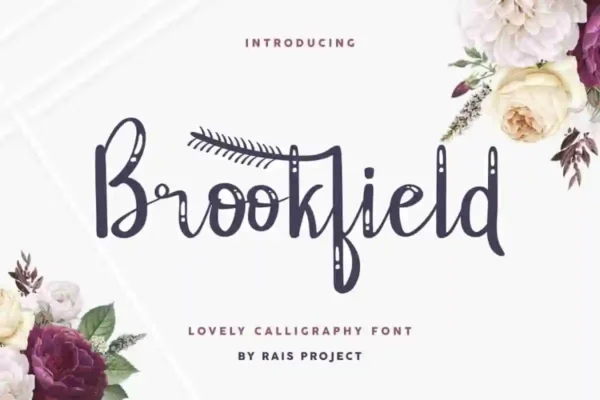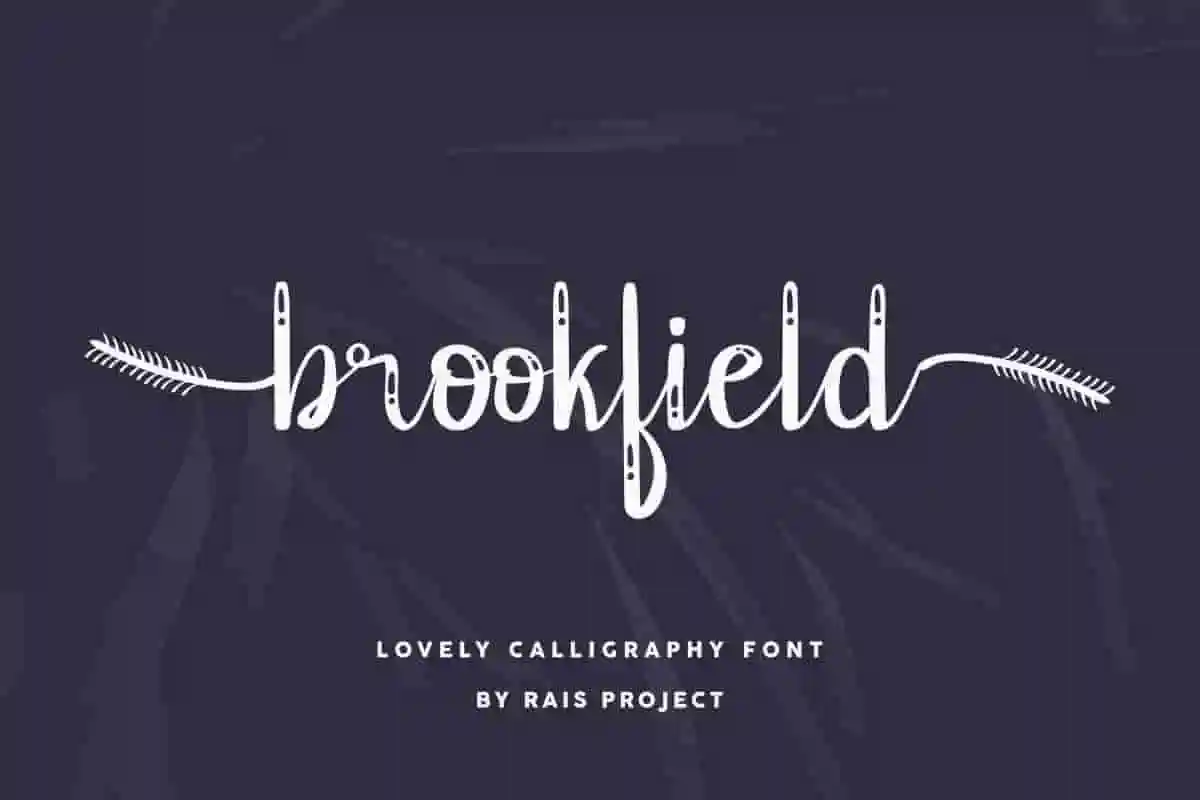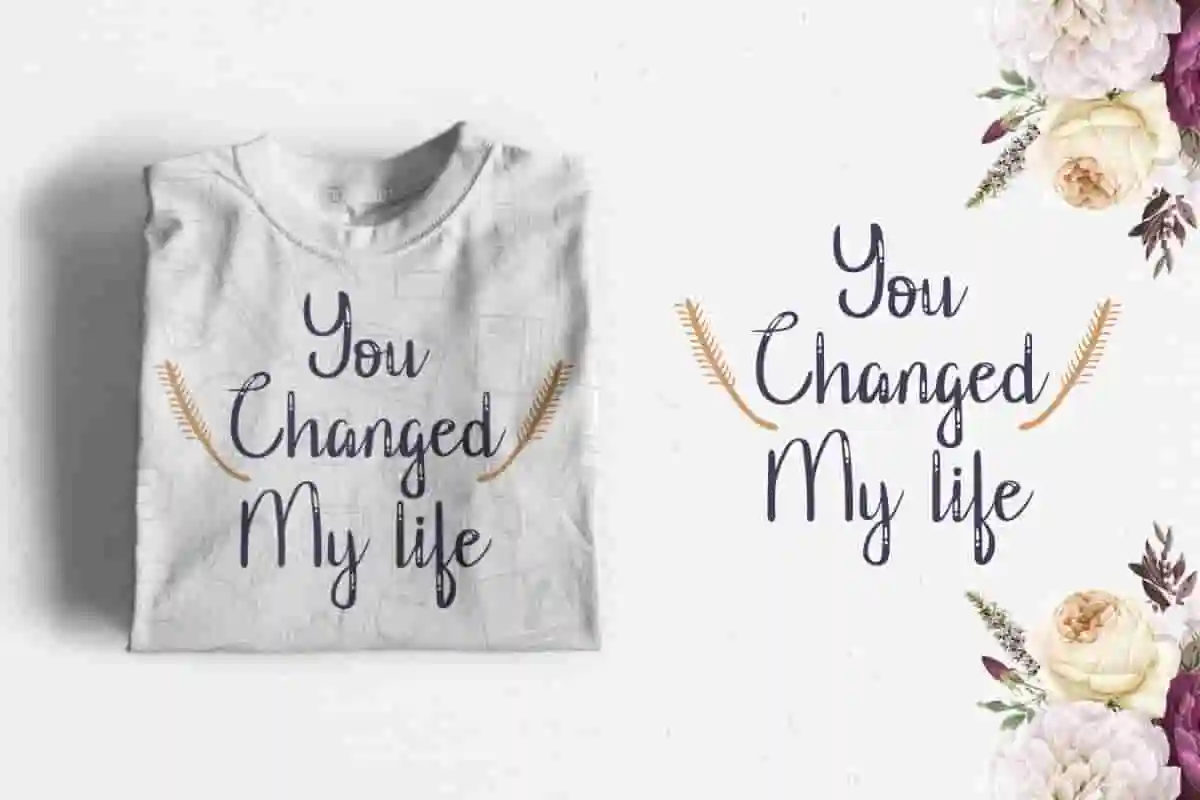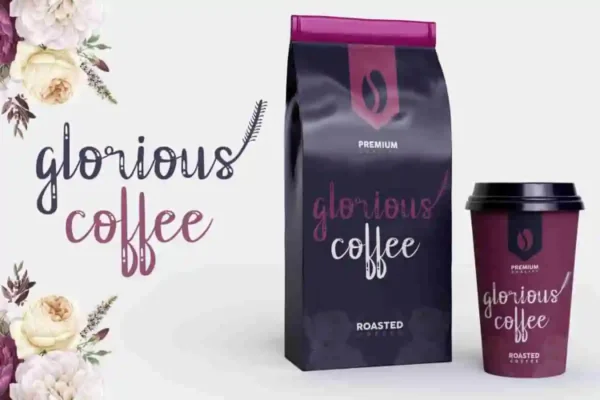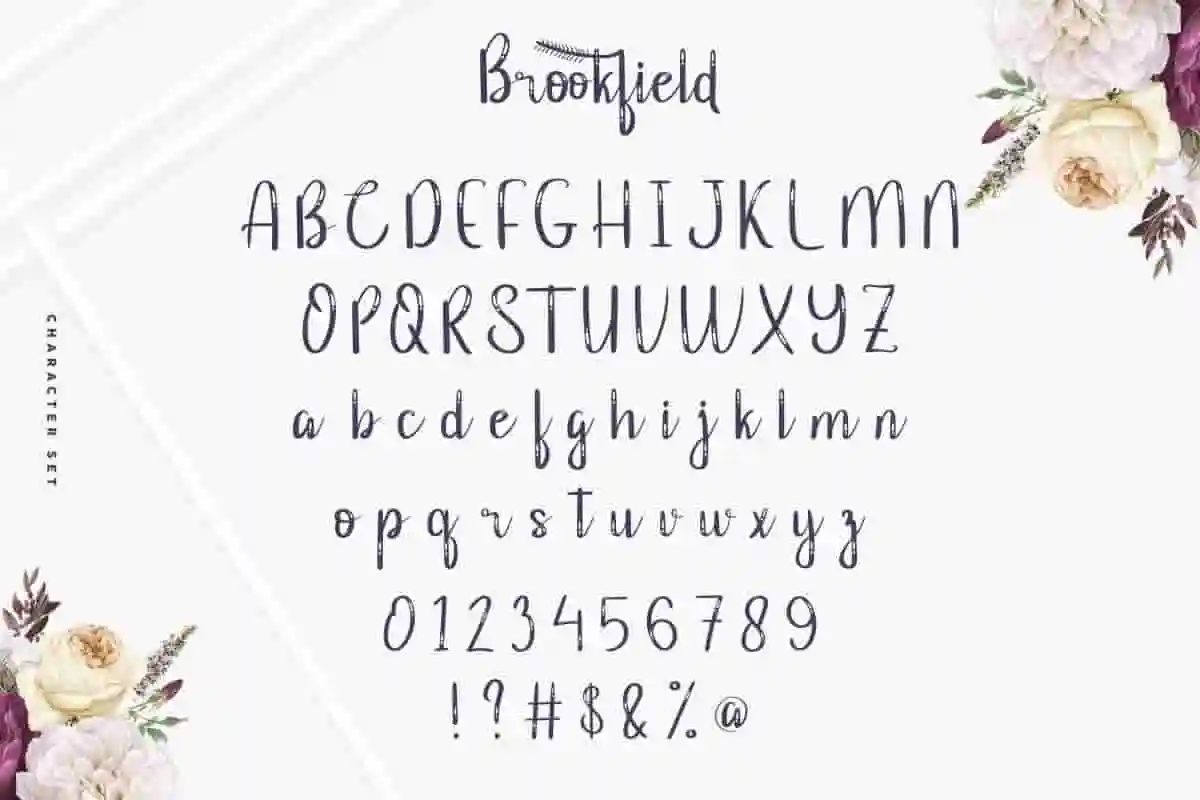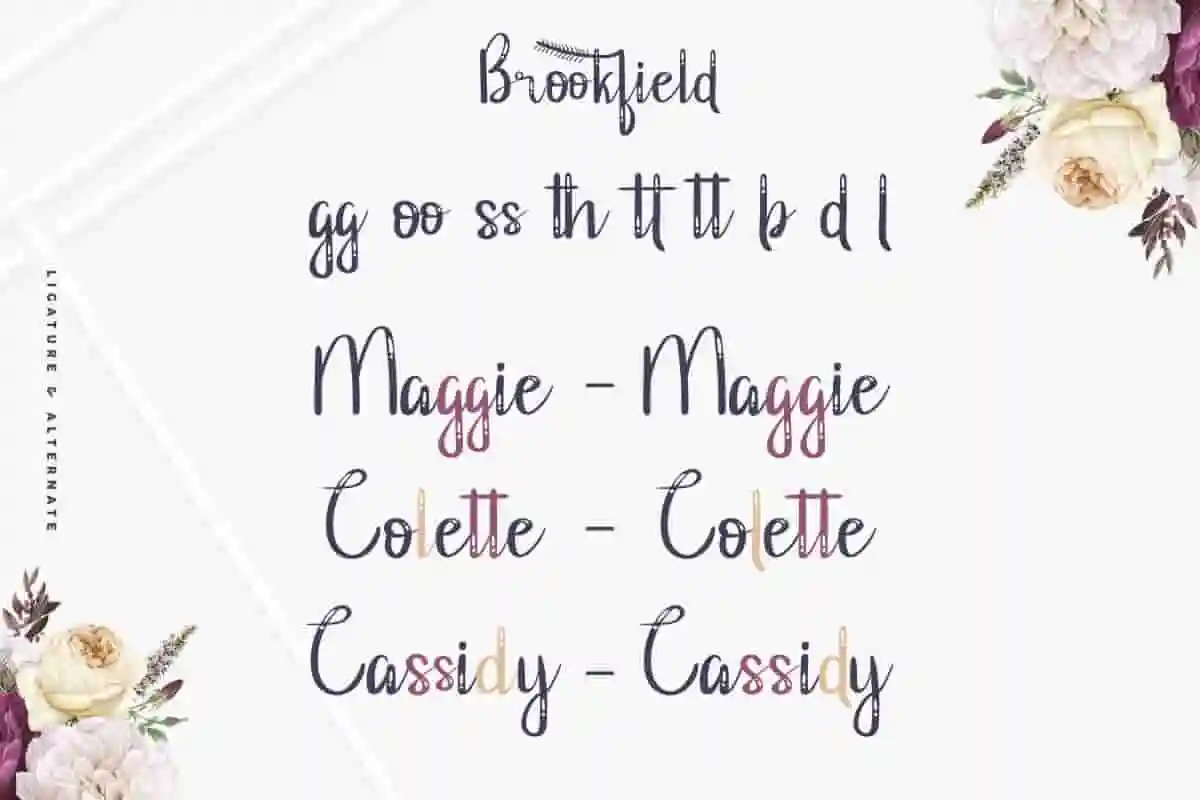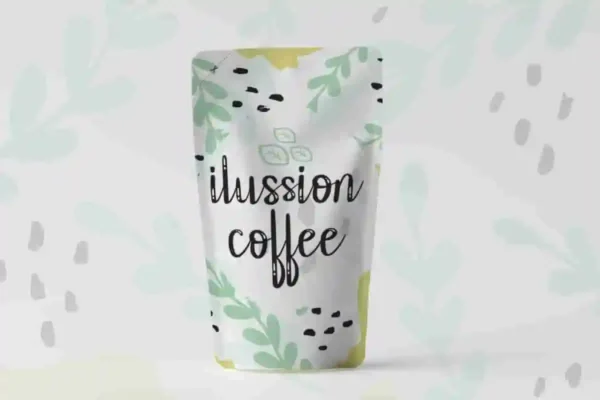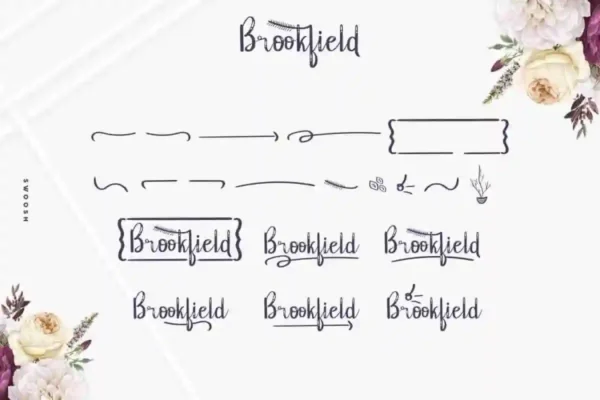
Brookfield Calligraphy Font
Brookfield Font is an beautiful unique Calligraphy Font by RaisProject. With exclusive characters, it will be stunning for any your special projects including : weddings, promotion, events, branding, advertising etc
Brookfield is a Original beautiful script font with calligraphic handwriting style. You can see the demo font below. You can also input any word you want so you can see what it will look like :
Brookfield Font made in Indonesia by Widi and Suci for RaisProject. The font handcrafted With beautiful characters, it will be stunning for any your special projects including : weddings, promotion, events, branding, advertising, magazine, shopping, signage, invitation, stationery, social media posts, product packaging, product designs, label, photography, watermark or and any projects that need calligraphy handwriting style. Brookfield Calligraphy Font includes full set of gorgeous uppercase and lowercase letters, numerals, a large range of punctuation and ligatures. All letters has realistic hand-lettered style to make it unique yet stunning design. You will get: